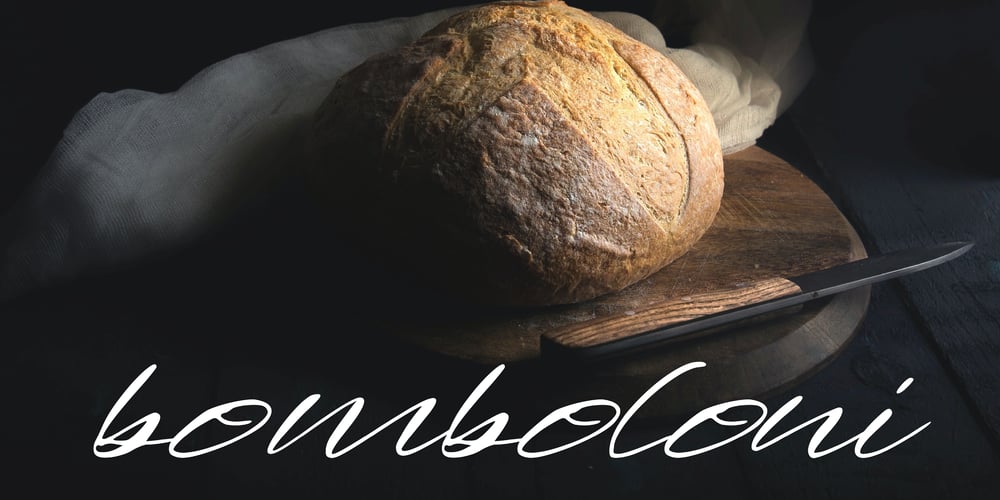
Bomboloni
Bomboloni font
Bomboloni Font Family was designed by Mariyana and published by Goodigital13. Bomboloni contains 1 styles and family package options. will be great for any projects including : branding, logo, stationery, business card, signage, flyer, brochure etc. Almost all industries will be match for this typeface: wedding, events, rmakeup artist, travel, hotel, musician etc, food